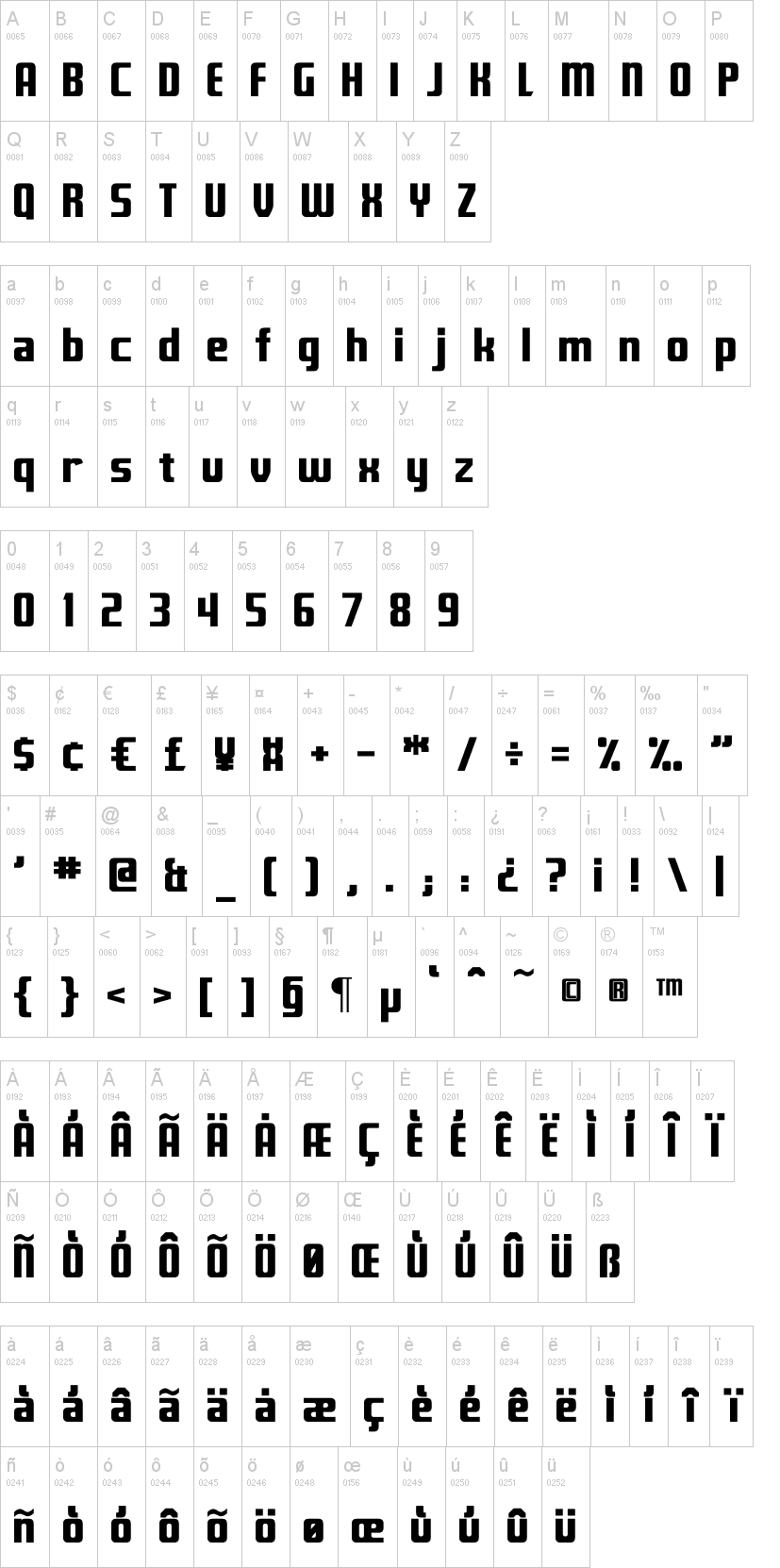
Fontana Italic.otfFontana Bold.otfFontana Bold Italic.otfNote of the authorFontana is based on the Pocket Books titling for their Star Trek novels through the 1970s and most of the 1980s. Includes accent characters, extended punctuation, and Euro. Includes bold and italic versions. "Fontana" is named after DC Fontana, one of Star Trek's most prolific authors.
* Minor glyph fixes
* Updating kerning and spacing
* Added polish characters